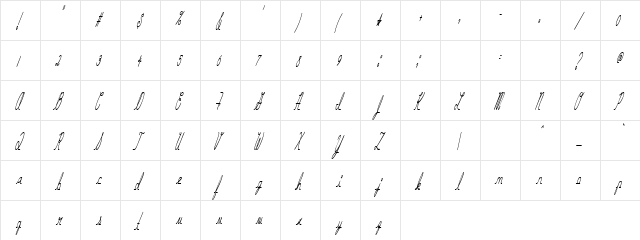
Jug Jeet Regular
Design Context for Jug Jeet Typeface
Jug Jeet is a composed and adaptable typeface that performs quietly and consistently across a wide range of design contexts.